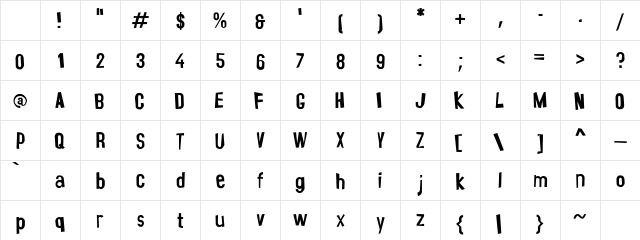
November Rain is a composed and adaptable typeface that performs quietly and consistently across a wide range of design contexts.
Pro Tip: Use November Rain in both headline and body roles to test its range before committing to a single application.